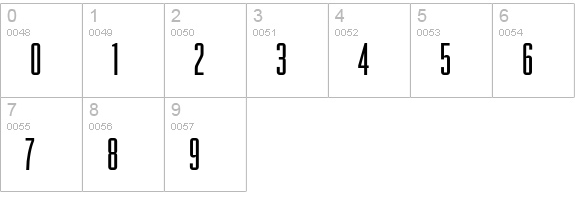
OdeonCondensedRegular Font Details
OdeonCondensedRegular font is a versatile and modern typeface that exudes elegance and sophistication. With its clean lines and balanced proportions, this font is perfect for a wide range of design projects, from logos to branding materials to web design. What sets OdeonCondensedRegular font apart is its unique blend of classic and contemporary design elements, making it a standout choice for designers looking to make a bold statement. The condensed style adds a touch of sleekness and professionalism to any text, making it ideal for use in headlines and other display settings. And the best part? OdeonCondensedRegular font is available for free download at FontsMarket.com. So go ahead and add this stylish and versatile font to your collection today!